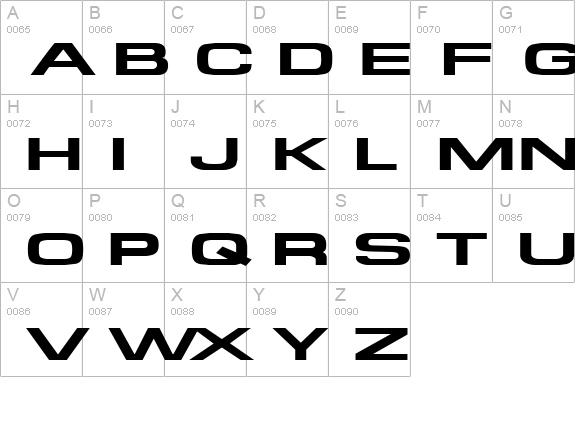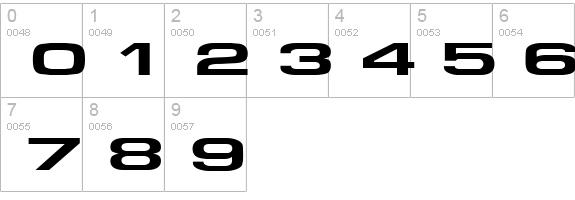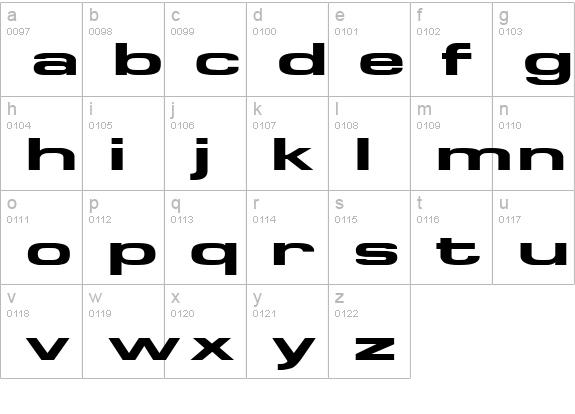
Supertouch Font Details
Supertouch font is a modern and stylish typeface that exudes elegance and sophistication. With its sleek lines and contemporary design, this font is perfect for a wide range of projects, from branding to editorial design. The clean and minimalist aesthetic of Supertouch makes it versatile and easy to use in various contexts. What sets Supertouch font apart is not only its visual appeal but also the fact that it is available for free download at FontsMarket.com. This means that you can elevate your design projects without breaking the bank. Whether you're working on a logo, website, or print materials, Supertouch font is sure to make a lasting impression. Download Supertouch font today from FontsMarket.com and enhance your creative endeavors with this stunning typeface.